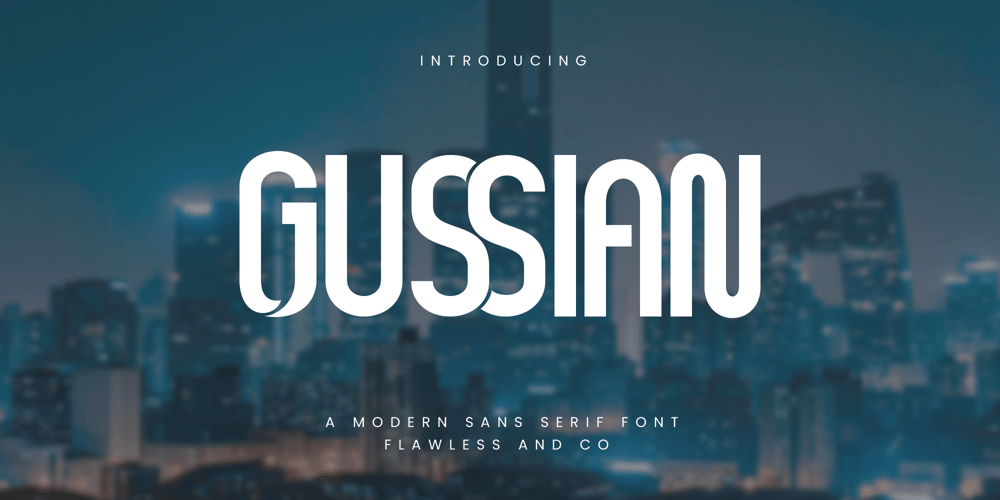
Gussian
Gussian font
Gussian Font Family was designed by Achmad Yani and published by Flawlessandco. Gussian contains 1 styles and family package options. Introducing “Gussian” – A Modern Sans Serif Font. Gussian is a contemporary sans serif font that effortlessly combines modern aesthetics with clean simplicity.There’s some connected letters and some alternates that suitable for any graphic designs.This font support for some multilingual. Also contains uppercase A-Z and lowercase a-z, alternate character, numbers 0-9, and some punctuation.If you need help, just write me! Thanks so much for checking out my shop!